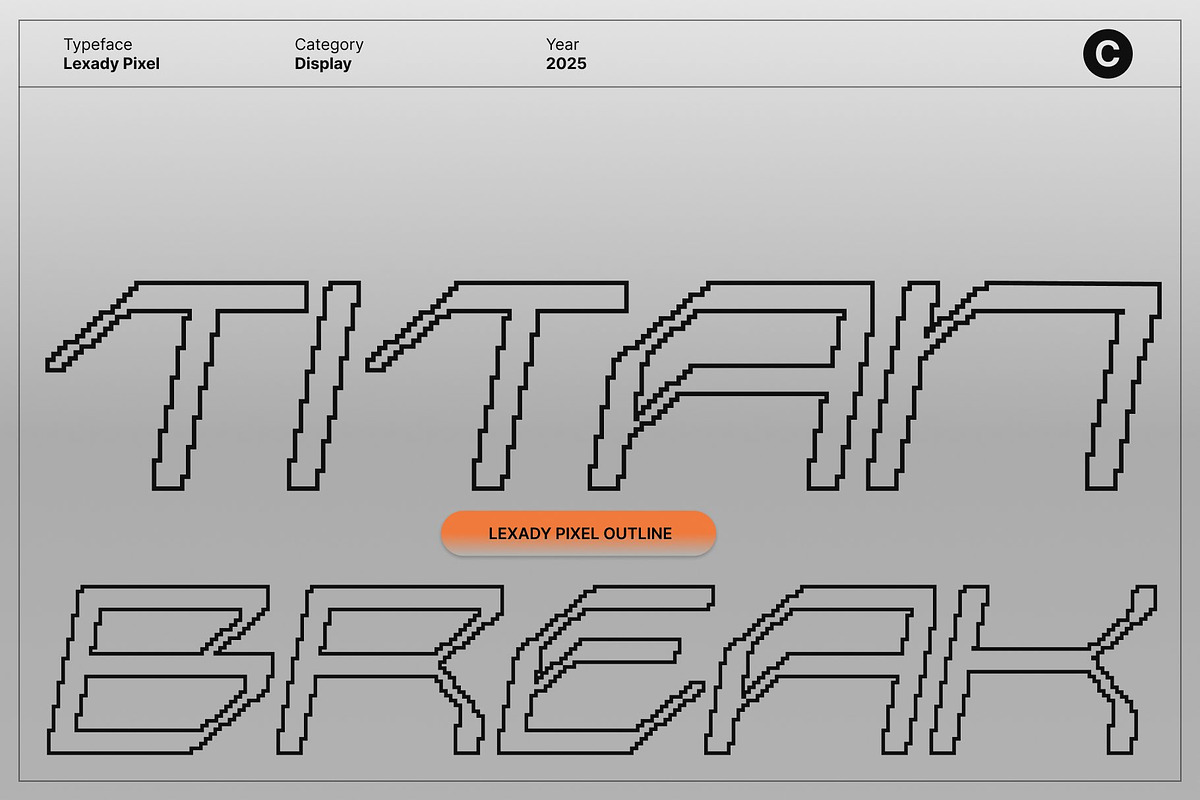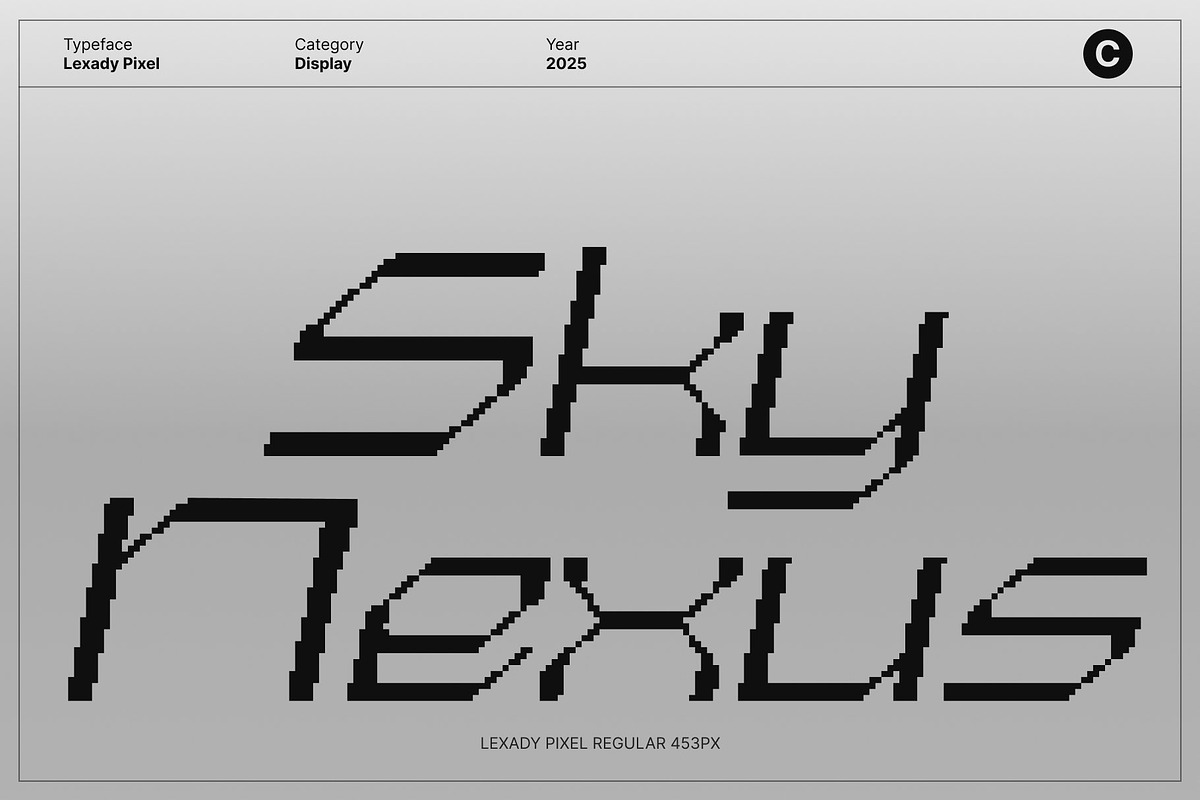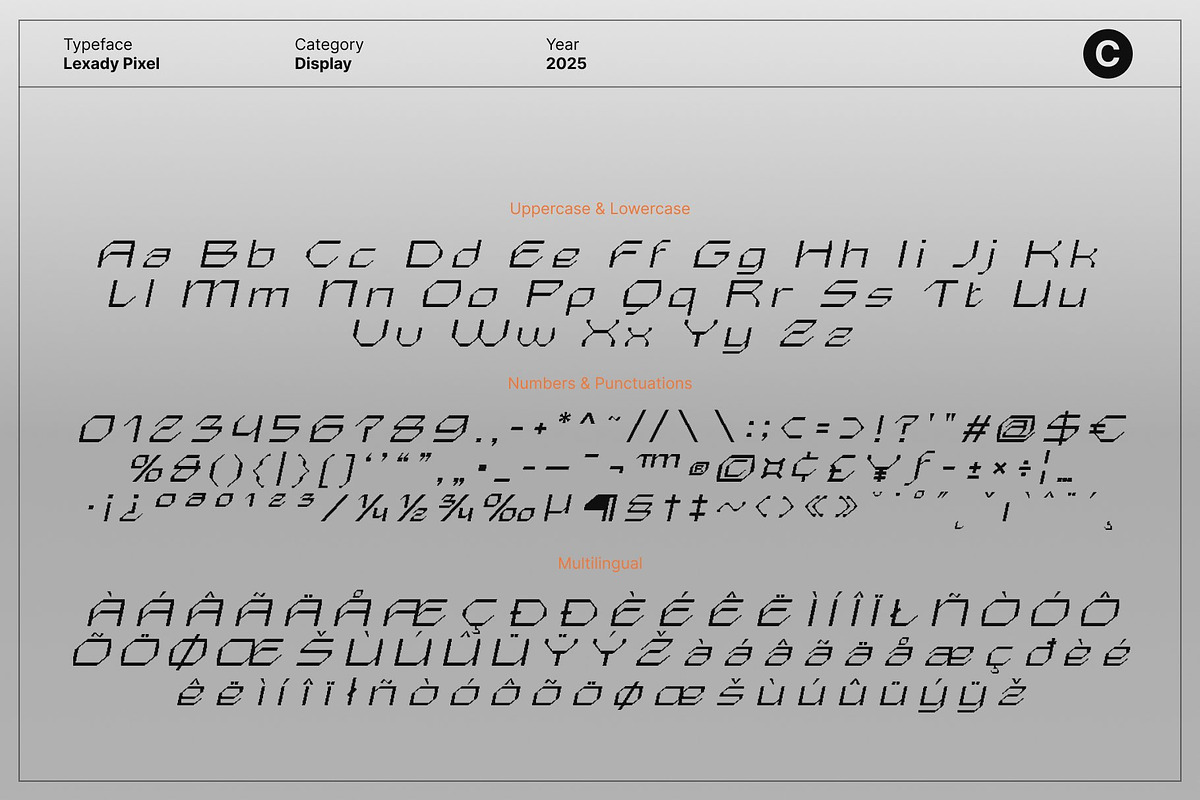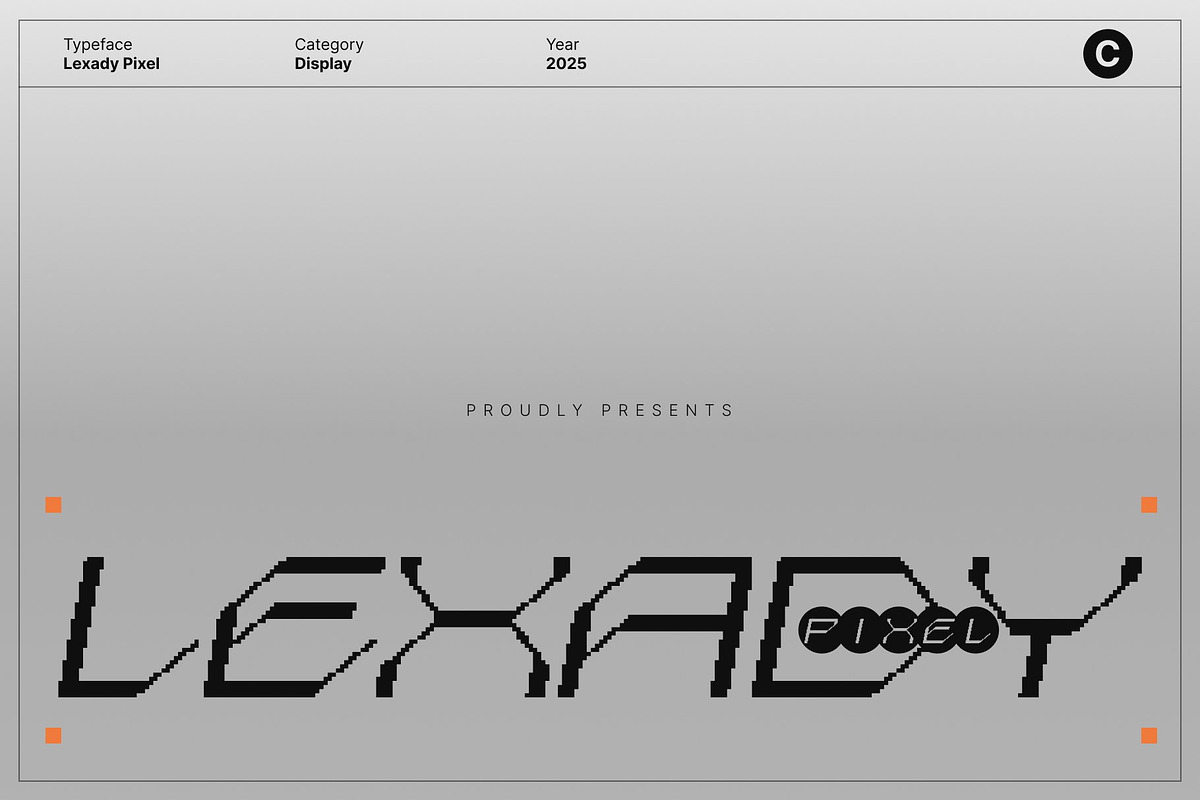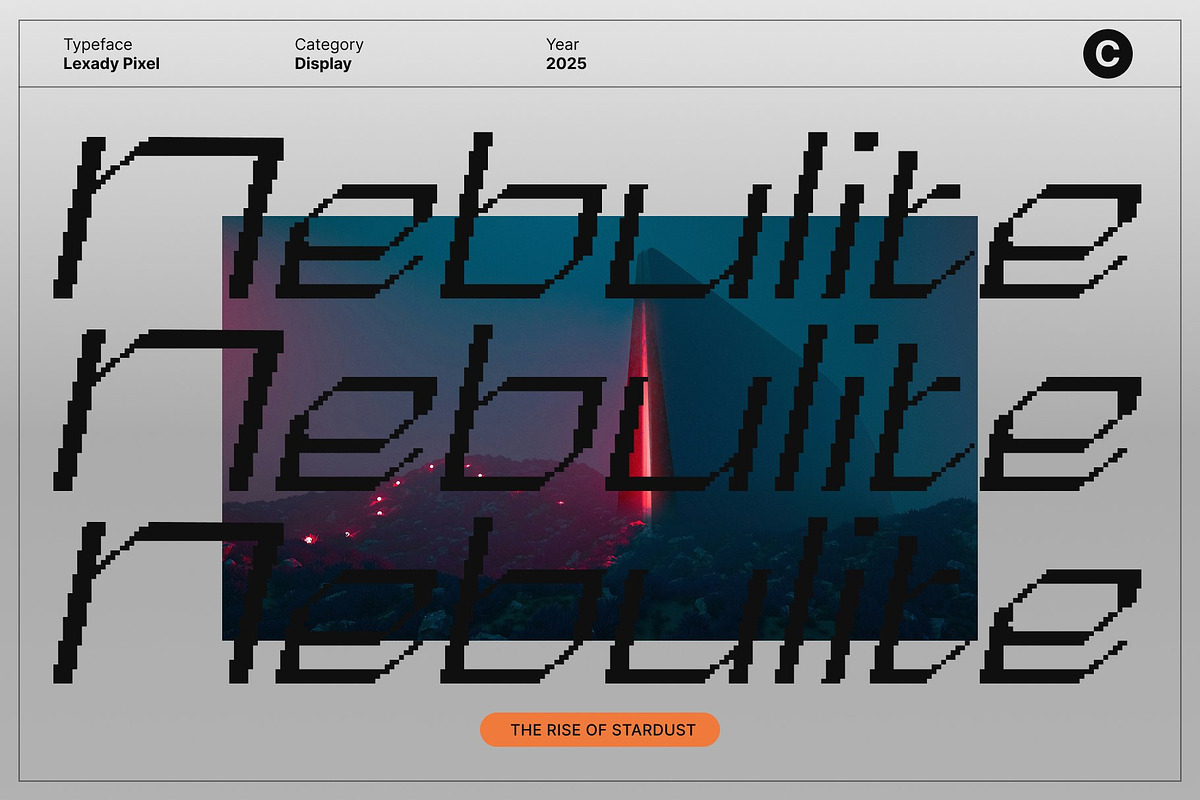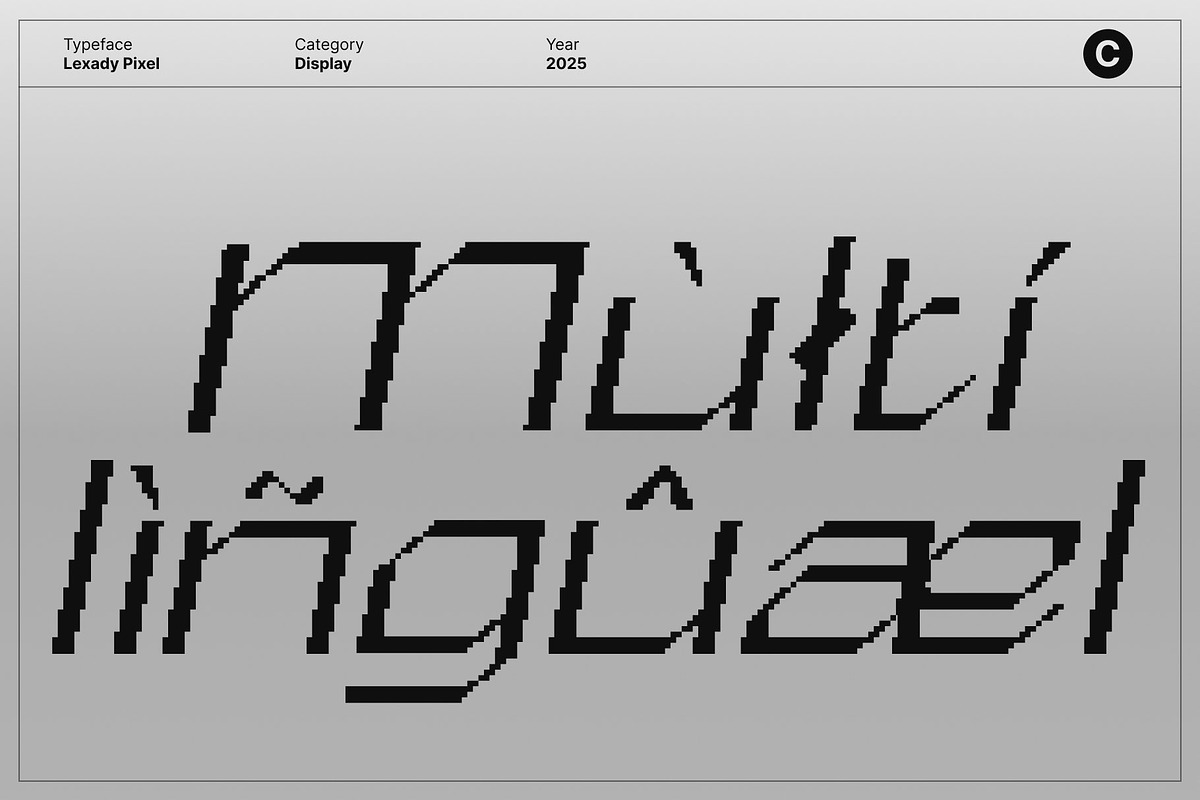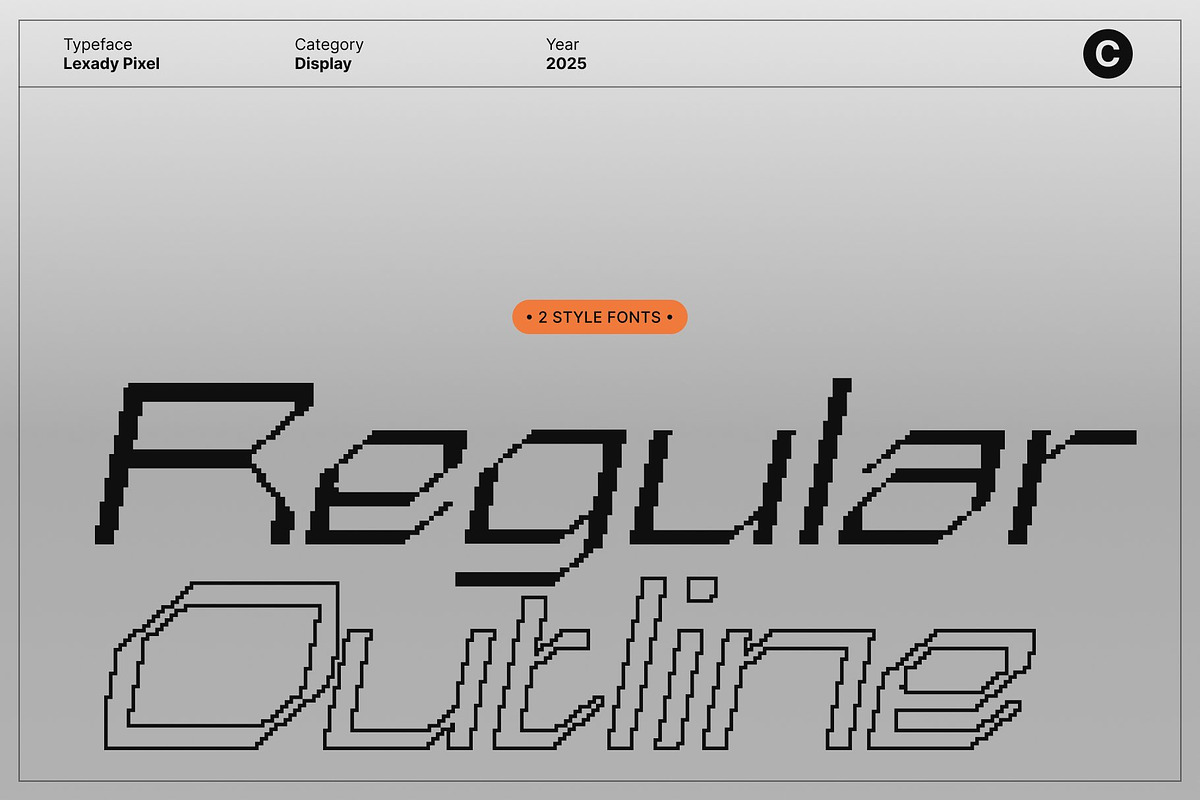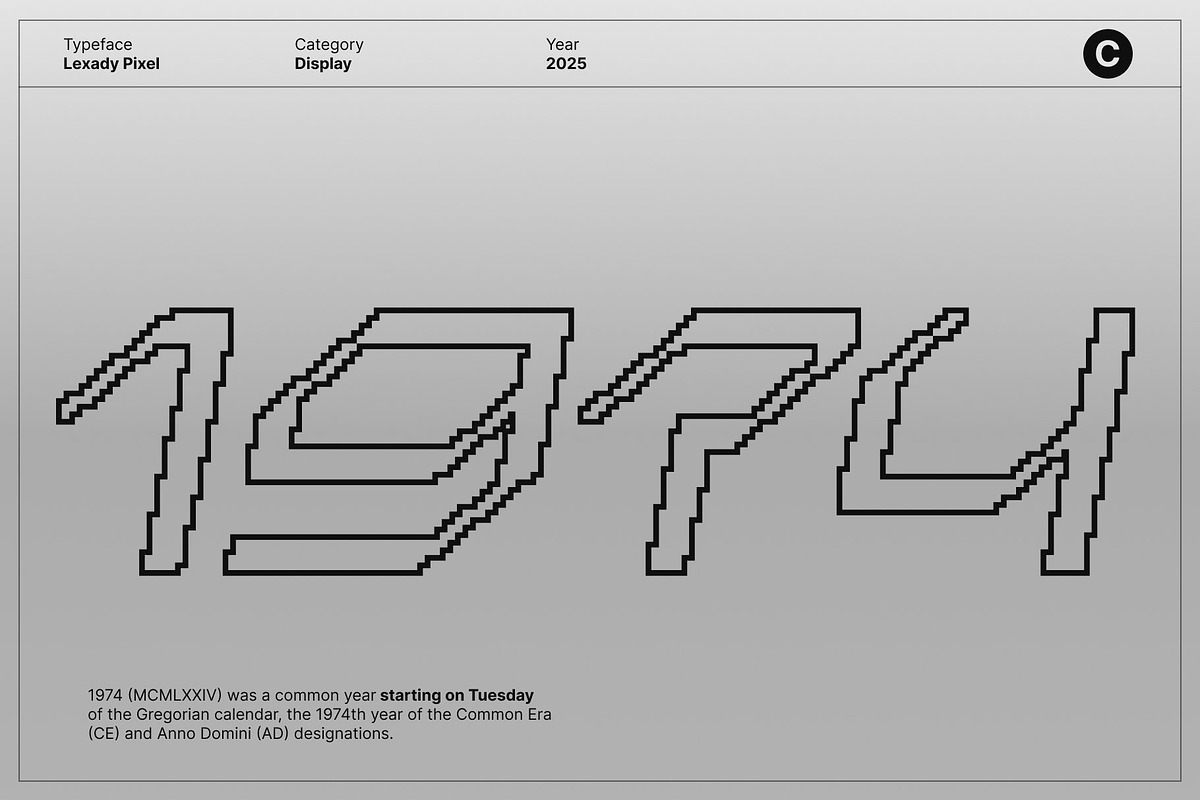
Lexady Pixel
Lexady Pixel – Techno Sans Serif Display Font with Futuristic Pixel Style
Modern, Striking, and Charged with Digital Energy This is a modern techno-inspired sans serif display font designed to radiate power and digital precision. Its clean, sharp structure delivers a strong visual rhythm, making it ideal for branding, logos, and poster designs that require a futuristic presence.
Pixel Detailing for a Futuristic Digital Identity The pixel style adds a dynamic digital twist, enhancing its techno character with a touch of 8-bit nostalgia. This blend of modern geometry and pixel texture creates a visually unique look that stands out across digital and print designs. The pixel influence strengthens its futuristic energy, giving your design a distinctive edge in today’s tech-driven creative landscape.
Bold Shapes for Maximum Clarity and Impact This font’s structured sans serif forms ensure excellent readability while maintaining a visually striking appearance. Its well-balanced shapes and confident lines make it perfect for large titles, hero text, and high-impact layouts. This combination of clarity and digital flair makes every message feel modern, strong, and engaging.
Ideal for Branding, Logos, and Futuristic Visuals Whether you’re crafting tech branding, esports identities, sci-fi posters, or modern digital campaigns, this font delivers the perfect fusion of innovation and visual strength. Its techno-inspired structure and pixel-driven energy bring a futuristic personality to any project making your design look sharp, stylish, and unmistakably digital.